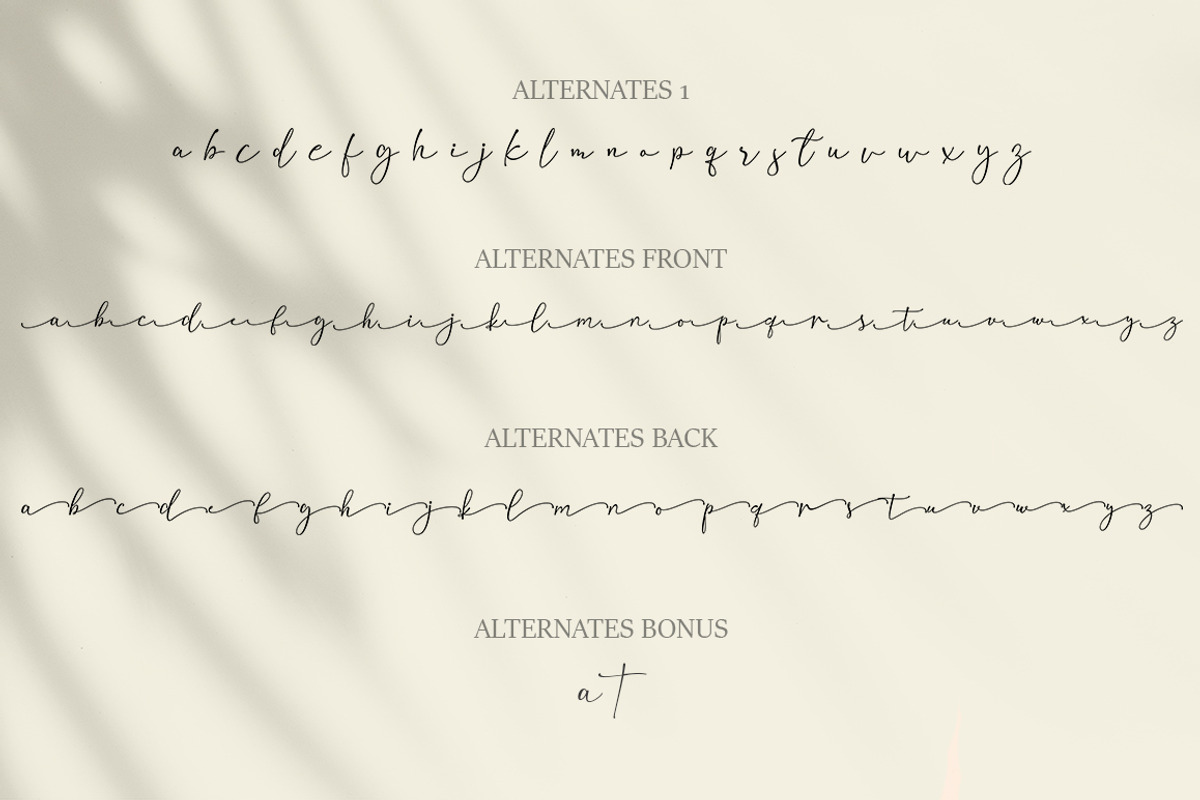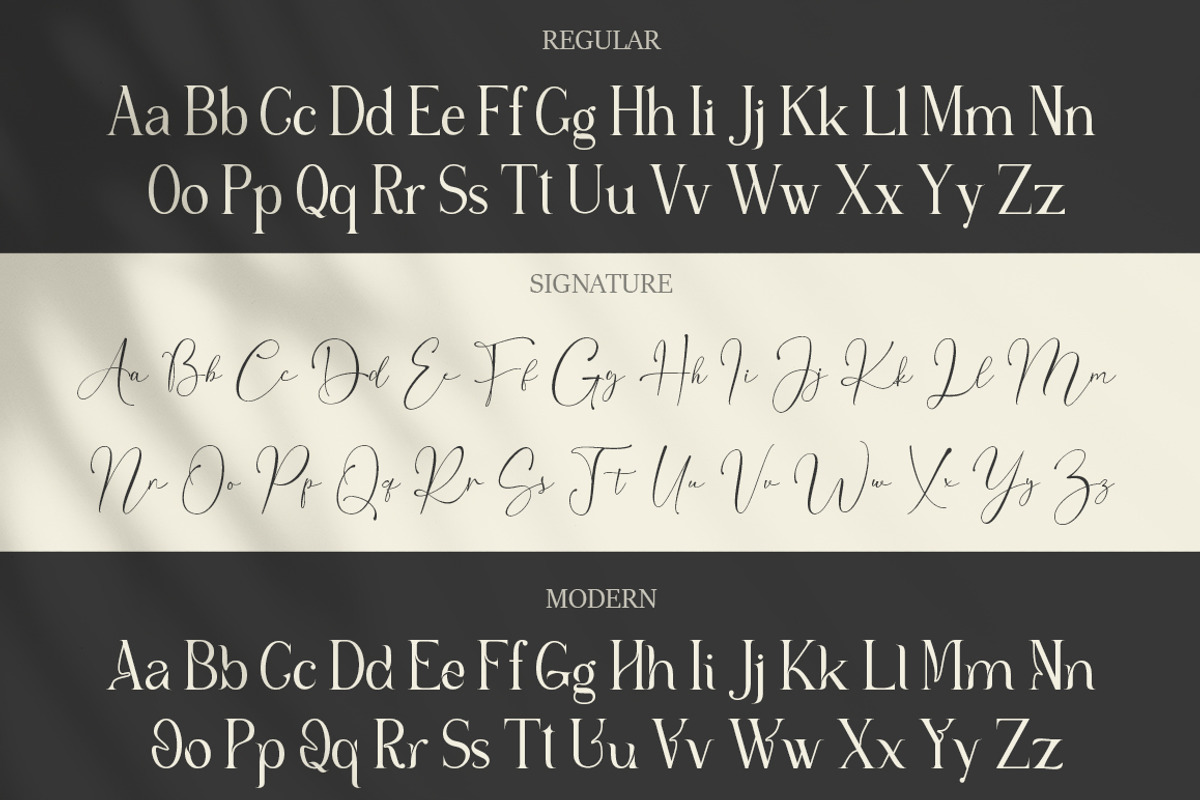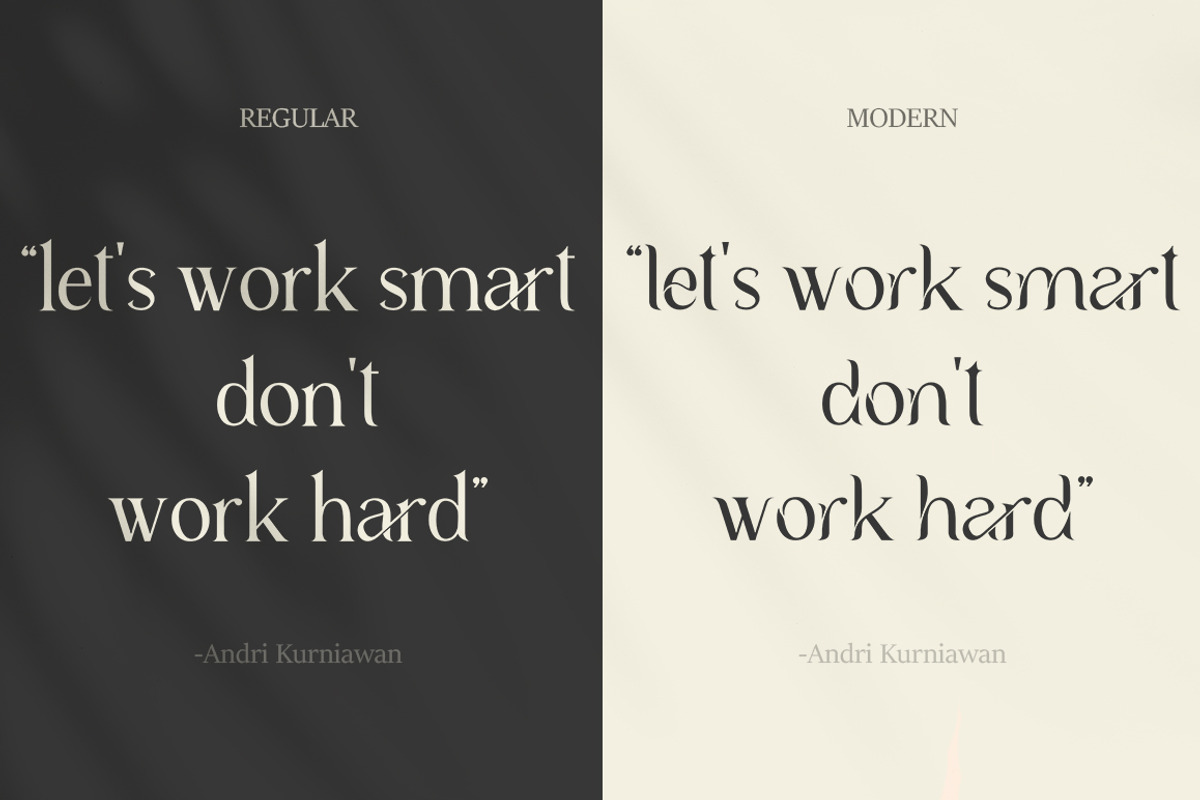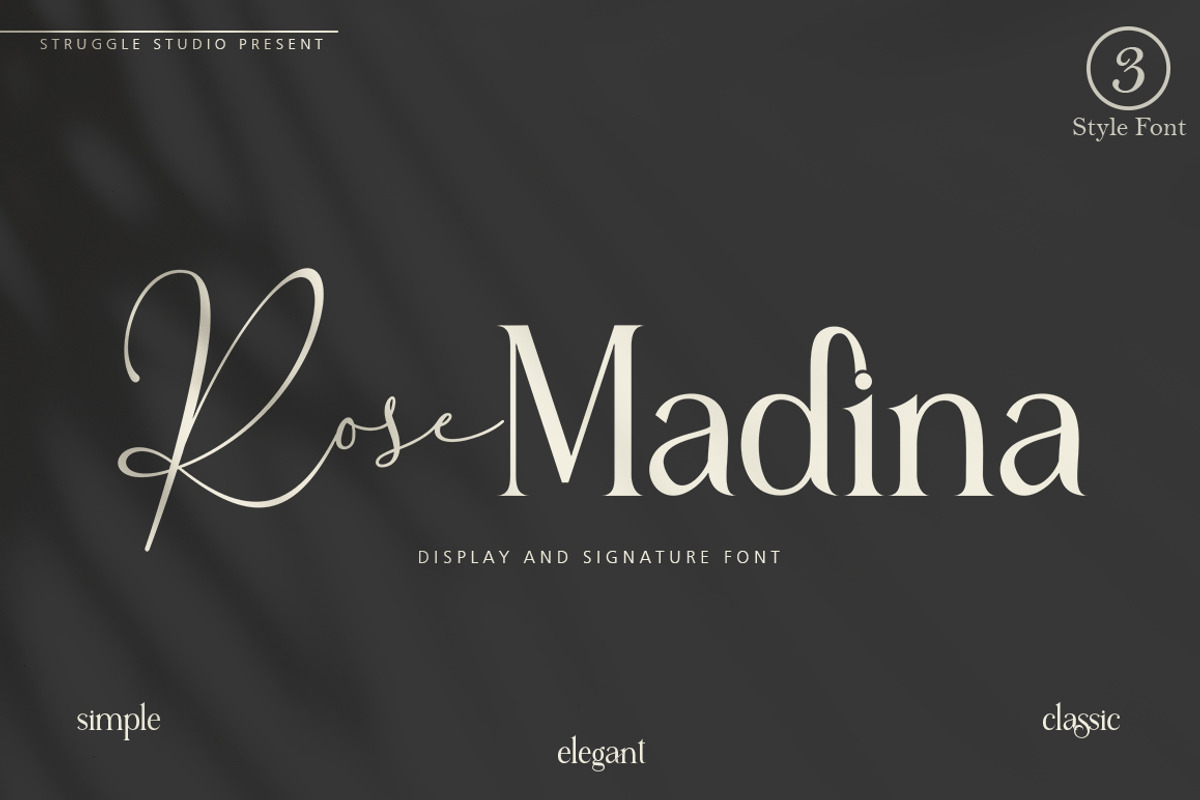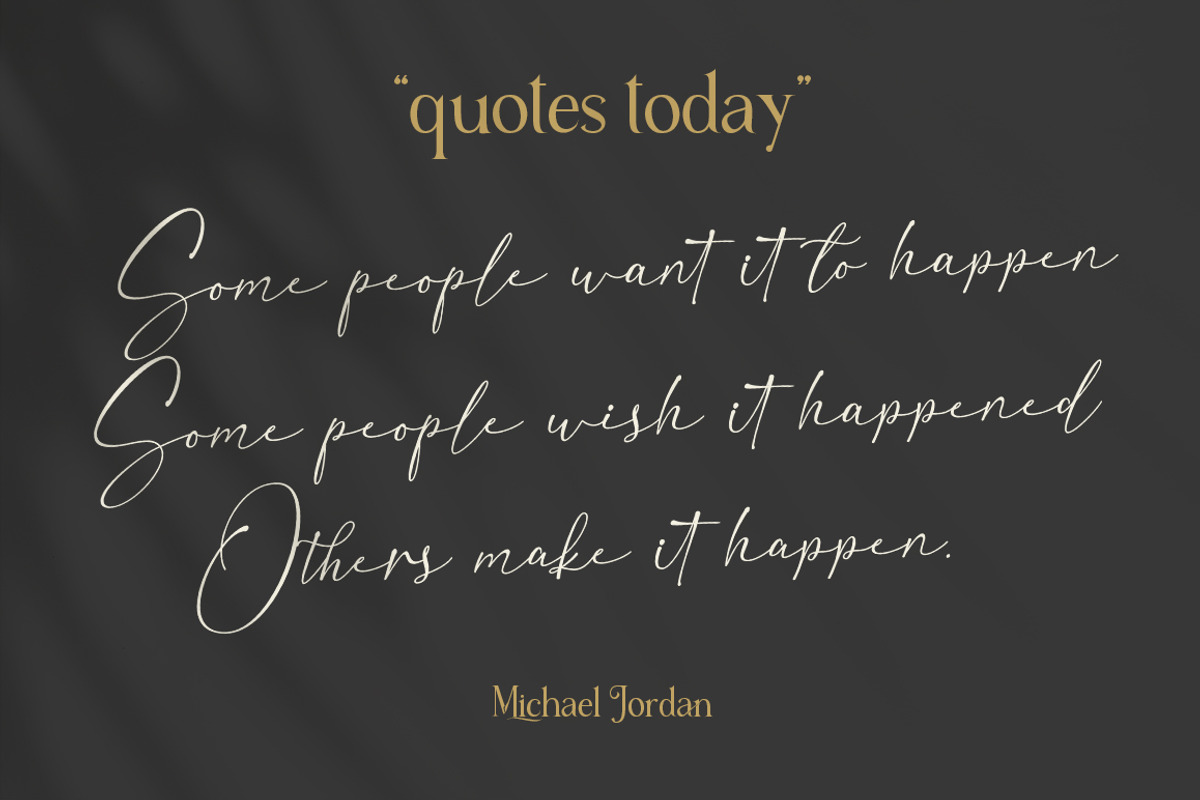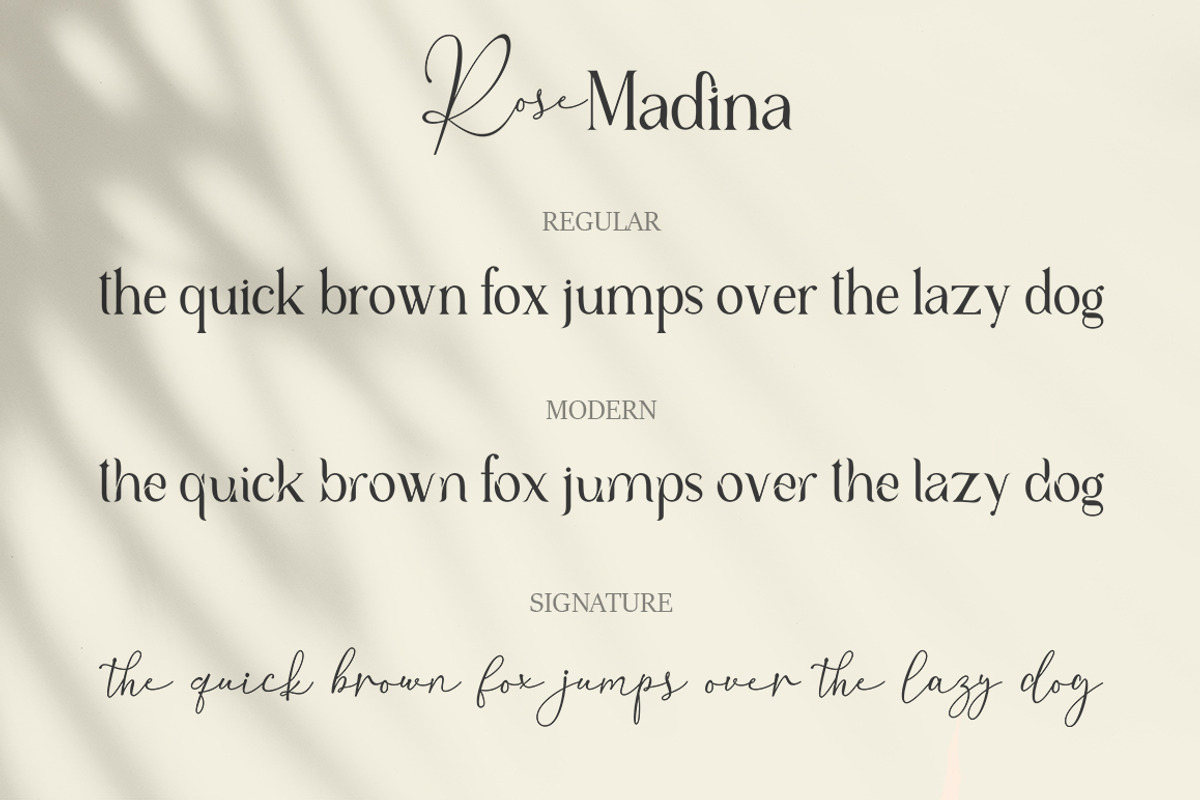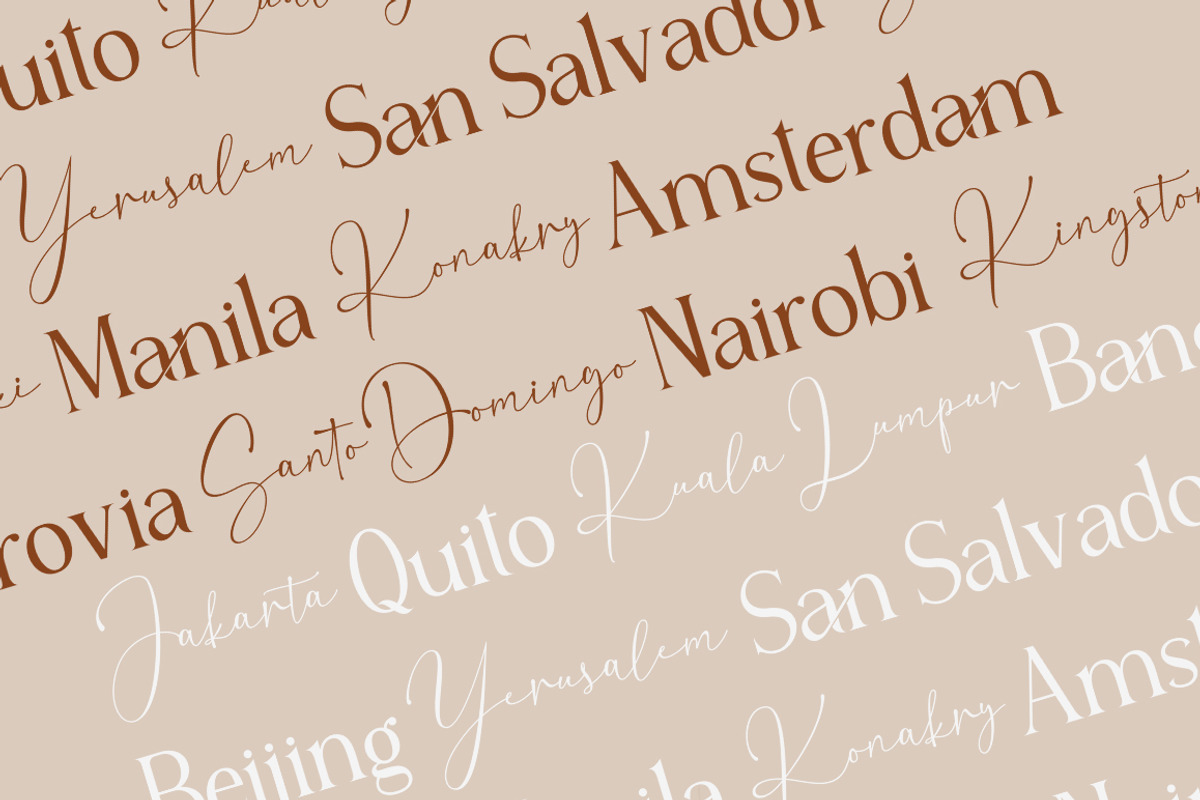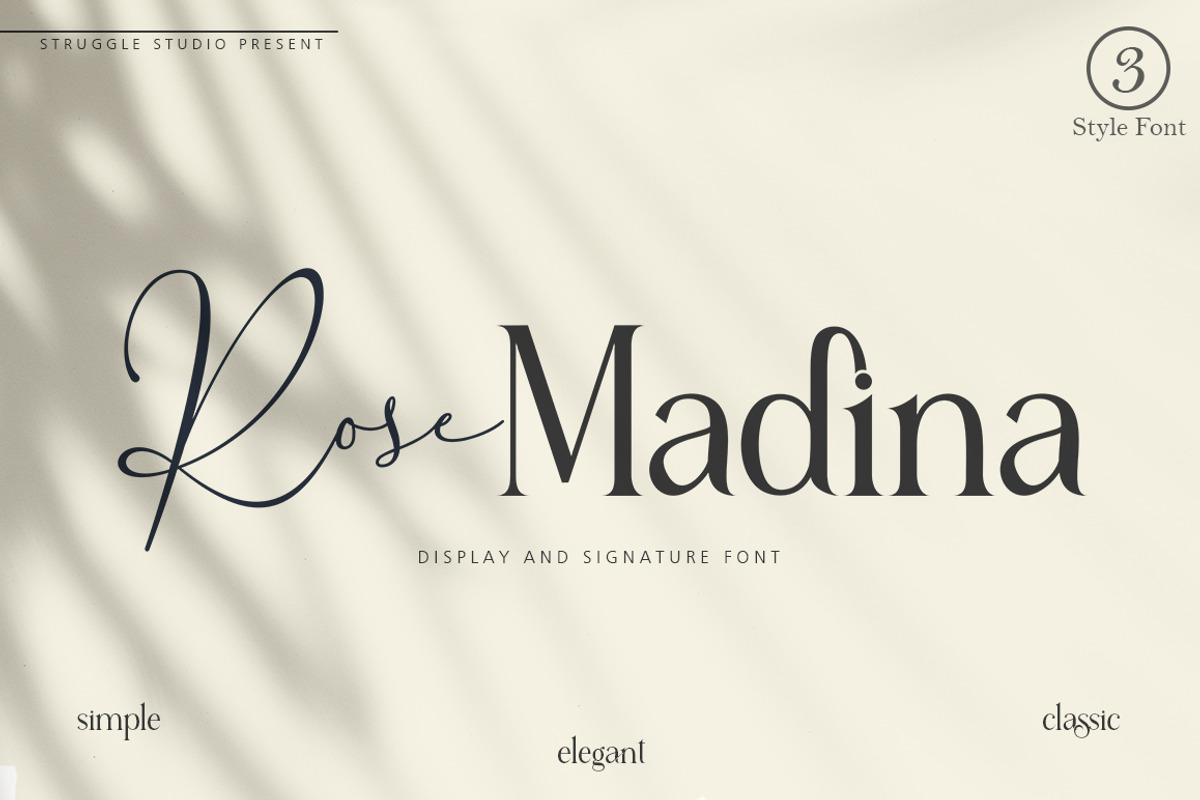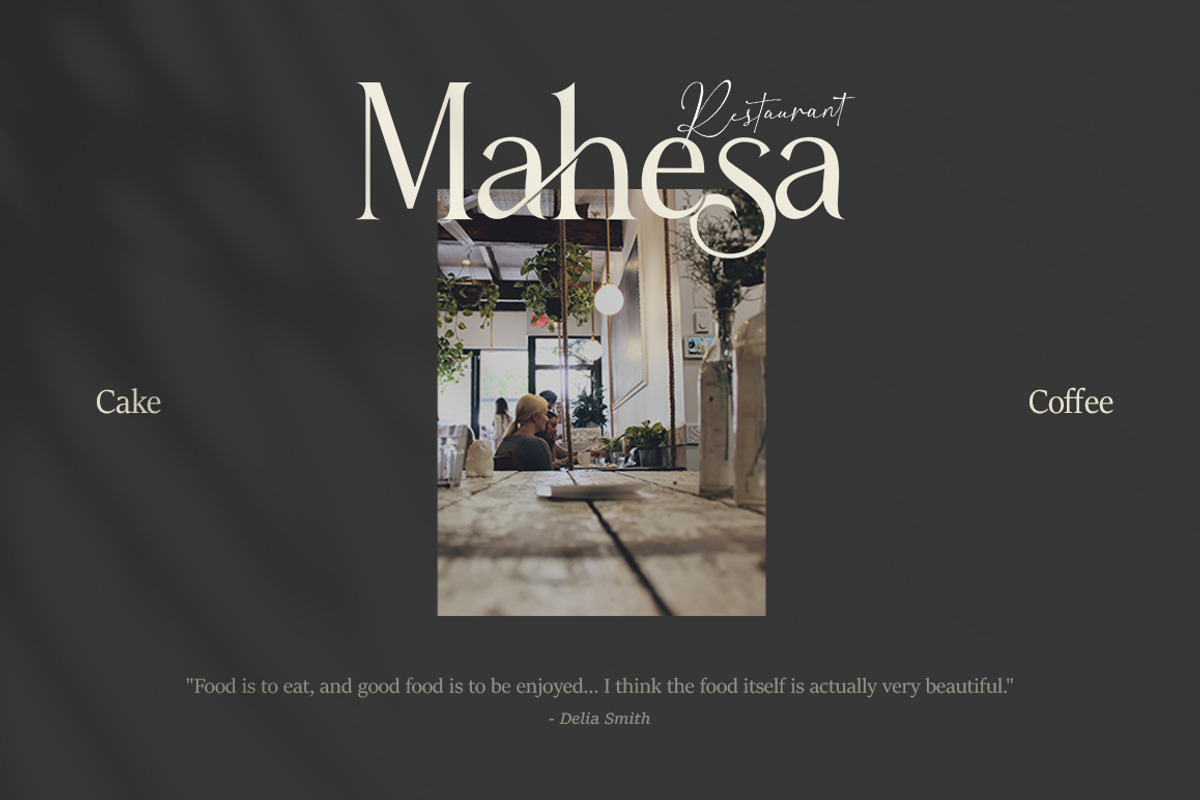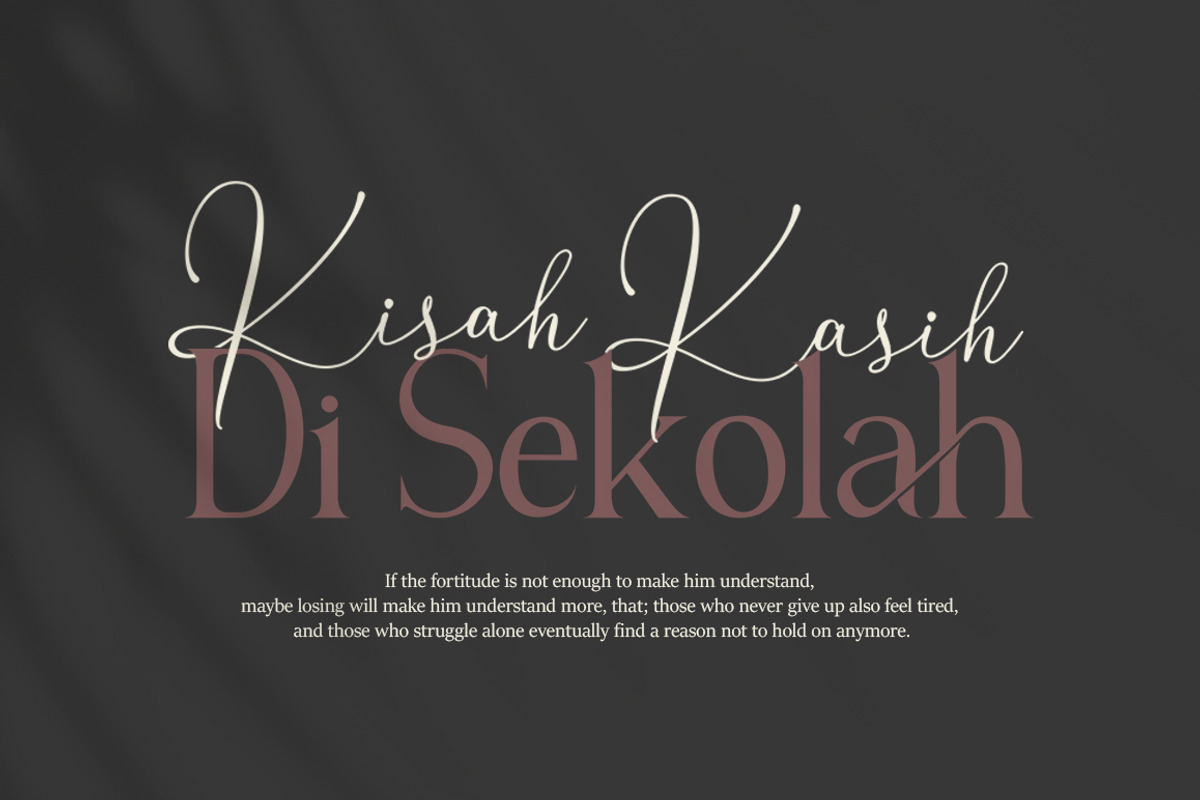
Rose Madina
Rose Madina is a display and signature font made into one family. Give your designs an authentic brush handcrafted feel. Rose Madina is perfectly suited to signature, stationery, logo, typography quotes, magazine or book cover, website header, flyer, clothing, branding, packaging design and more.